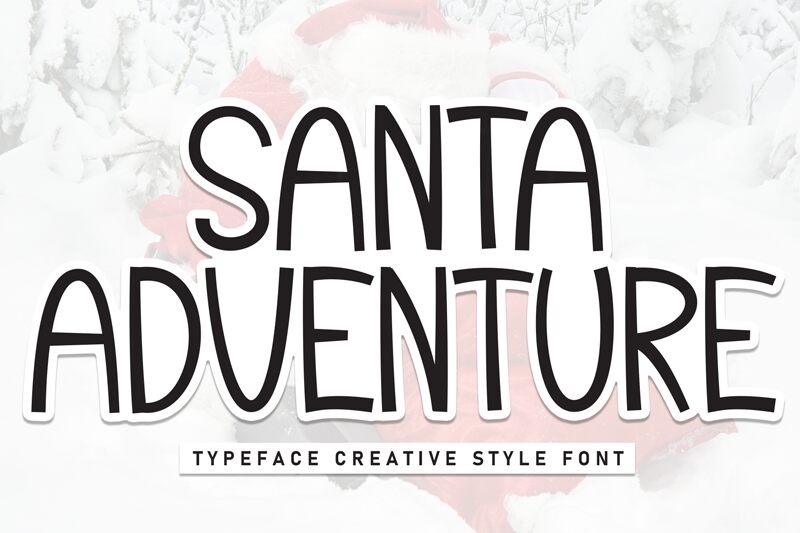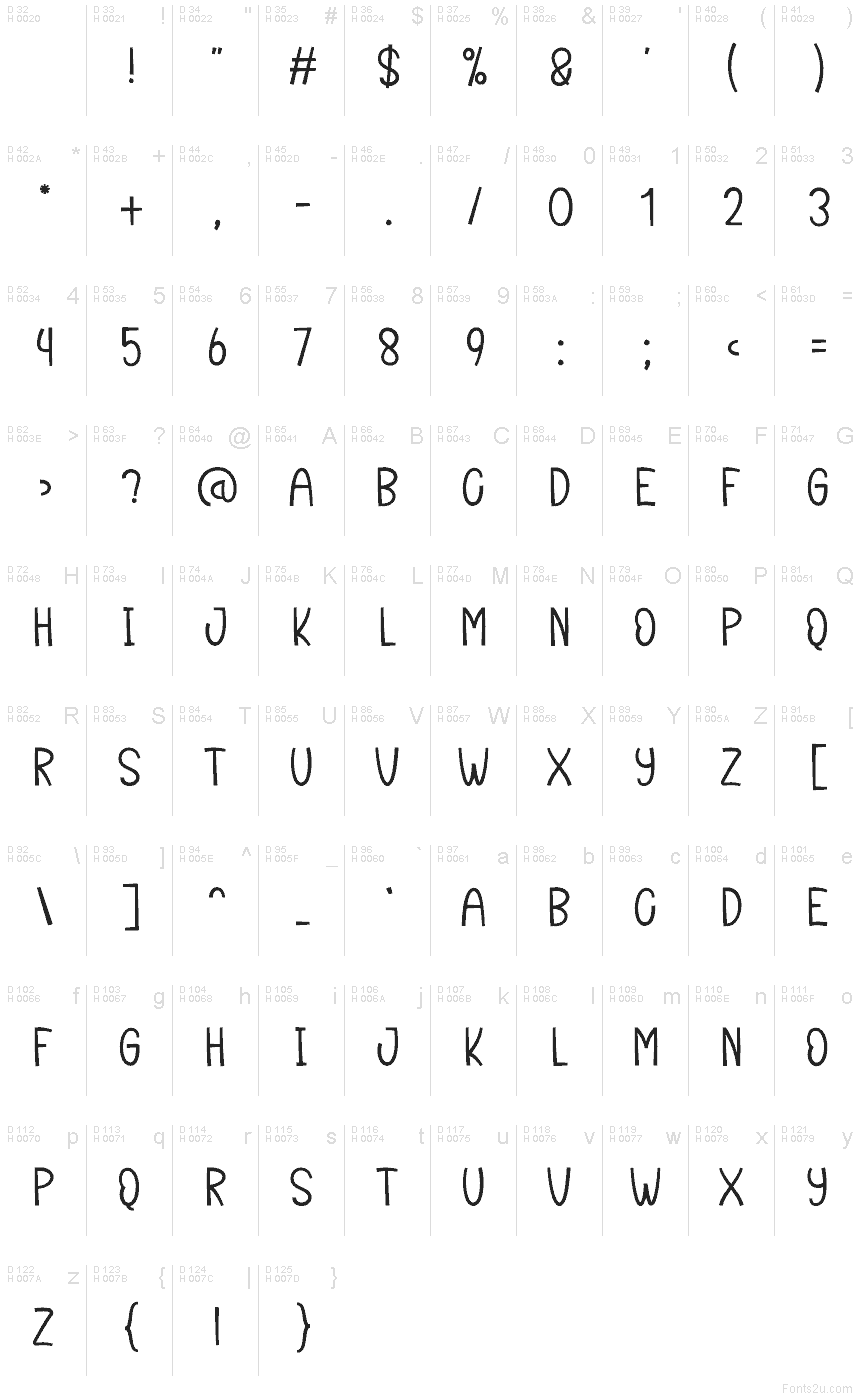
Santa Adventure
Santa Adventure font by Andi Moz is a free brush font that feels like it’s been lettered right on wrapping paper with a skinny marker. Tall, slightly wobbly strokes give it that hand-drawn, storybook energy—playful but still easy to read in quick glances. The letters stack closely together, creating a cozy, bundled-up rhythm that instantly suggests holidays, kids’ crafts, and snowy mischief.
Using Santa Adventure, you can bring a lively, festive voice to Christmas cards, gift tags, children’s book covers, party invitations, advent calendars, and seasonal social media graphics. This free font shines when used large in titles or short phrases, letting its quirky brush texture show. Pair it with a clean sans serif for body copy to keep your layouts cheerful but clear.